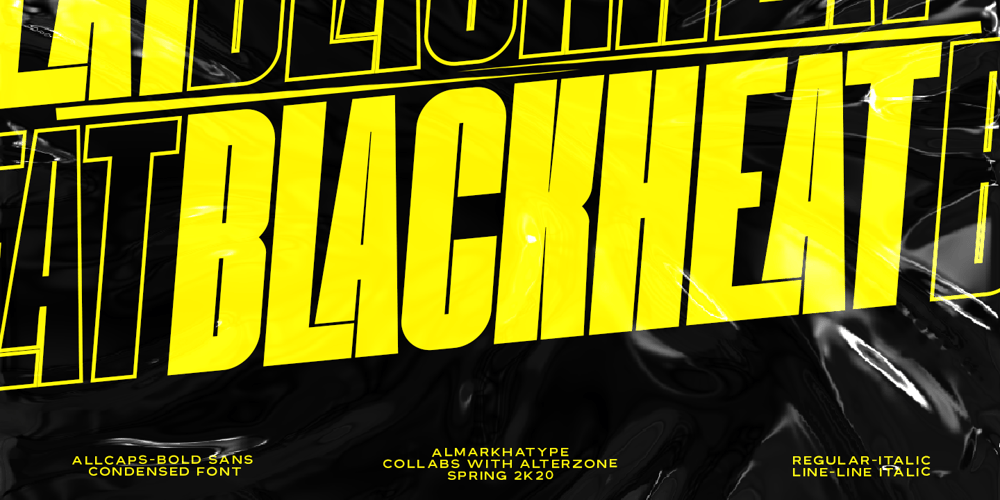
Blackheat Font Family was designed by Abdul Malik Wisnu and published by Almarkha Type. Blackheat contains 4 styles and family package options. Blackheat is a bold, condensed sans with 4 styles inspired by the title of the sports poster. We designed it to look very energetic, taking into account the thickness and density of each glyph. Extra ligatures give you even more possibilities. This family is suitable for the titles, clothes, posters, magazines, brochures, packaging, websites and much more.